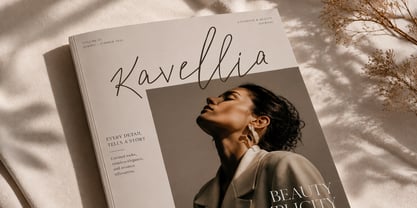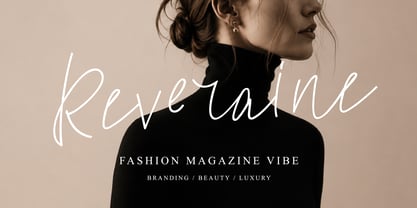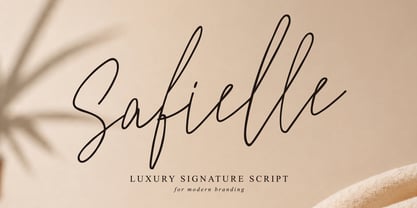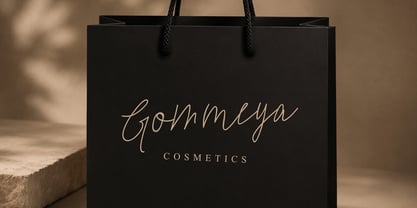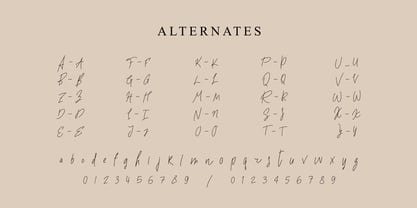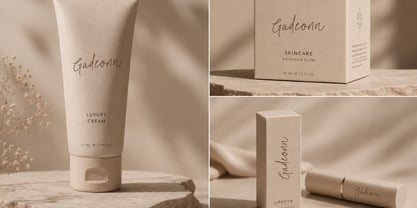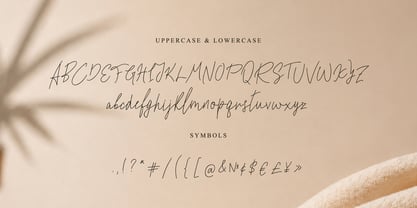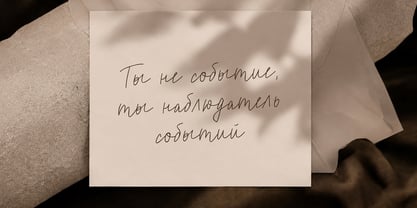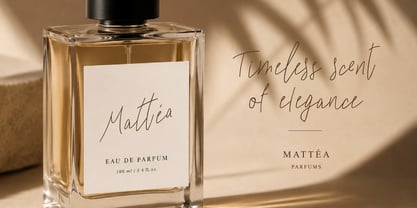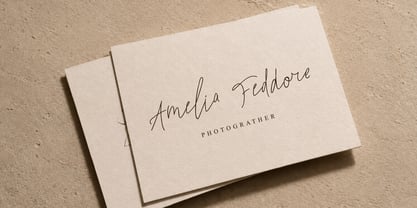
Safielle
by Chekart
Safielle is a modern luxury signature script designed for elegant branding and contemporary visual identities.
Created with a refined handwritten flow, stylish ligatures and carefully crafted alternates, Safielle brings a sophisticated editorial feel to fashion, beauty, cosmetics, perfume, photography and personal branding projects.
Unlike traditional wedding calligraphy fonts, Safielle focuses on clean modern luxury aesthetics — minimal, stylish and highly versatile.
The typeface includes multilingual support, extensive ligatures, alternates and full Cyrillic support, making it perfect for international branding and premium design work.
Perfect for:
• Fashion branding
• Beauty packaging
• Perfume labels
• Editorial layouts
• Luxury logos
• Social media
• Photography branding
• Cosmetics design
• Magazine covers
• Boutique identities
• Uppercase & Lowercase
• Numbers & Punctuation
• Ligatures
• Stylistic Alternates
• Multilingual Support
• Cyrillic Support